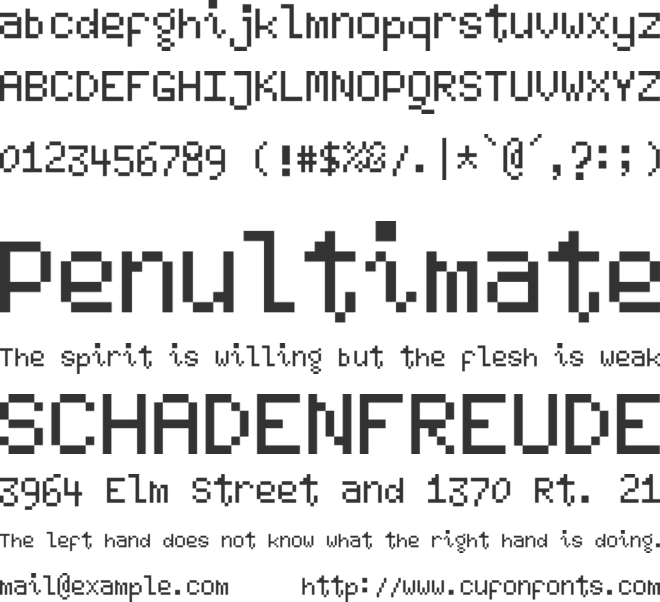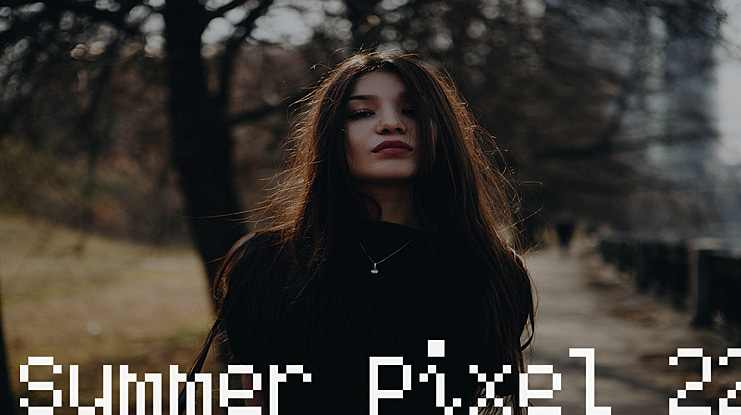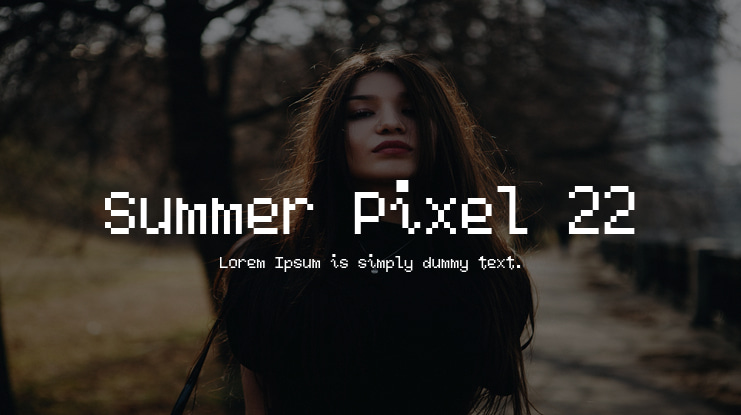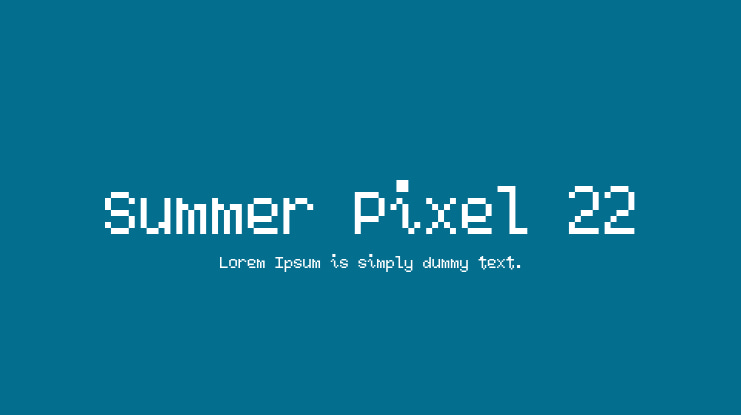
Summer Pixel 22 Font
I wanted to create a pixel font that's lively and has a character. Oftentimes pixel fonts are very stiff, constructions rather than creatures. For some reason many designers tend to draw all the characters "perfectly", i.e., they tend toward forms that are low resolution approximations of high definition forms. In so doing there's nothing left of the original charm, as you get rid of all the nuances that made that one type special. I think I managed to create a very lively font, and I hope you like it too!